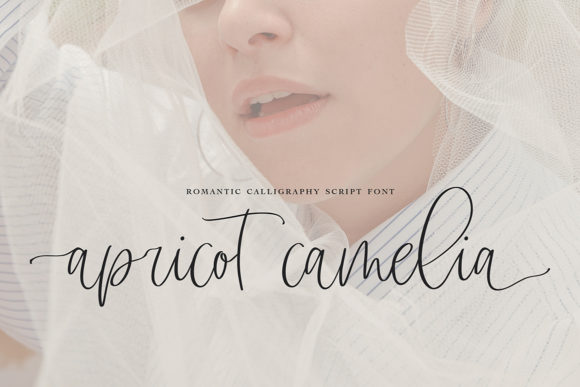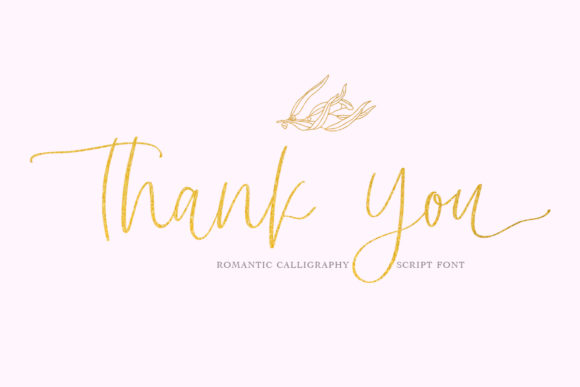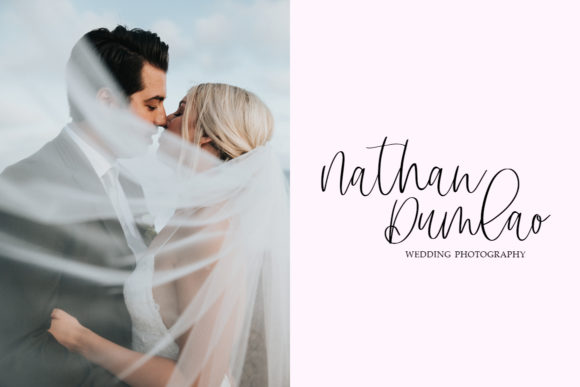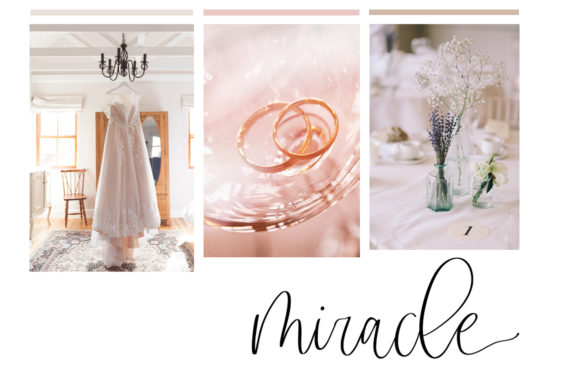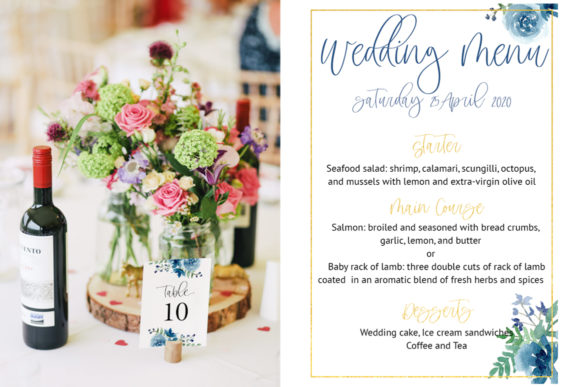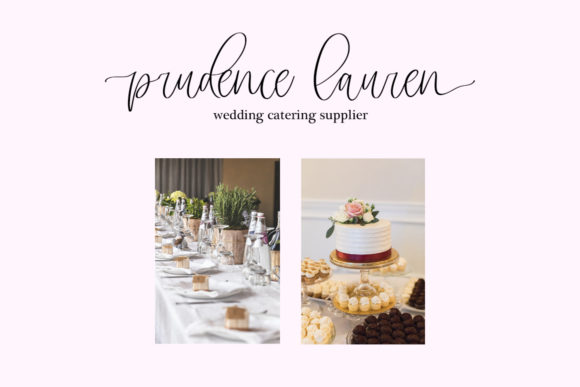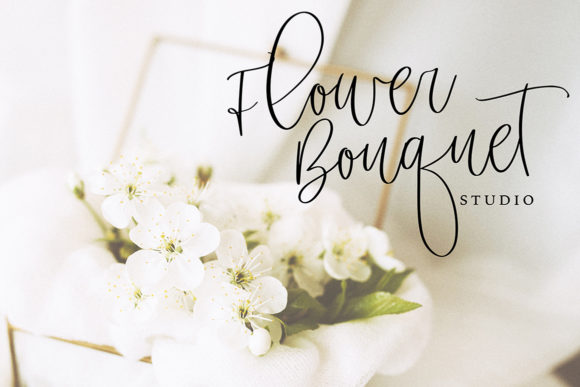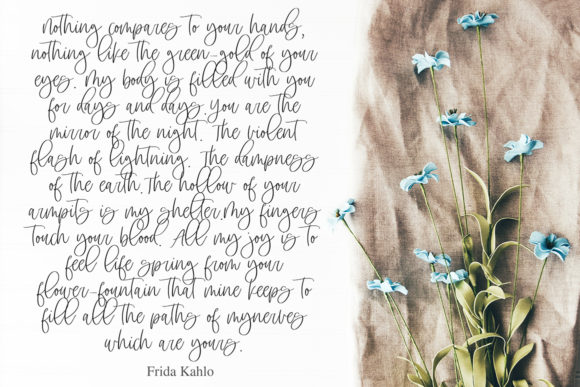
Apricot Camelia Font
About Apricot Camelia Font
Apricot Camelia is a magical handwritten font carefully crafted with a touch of elegance and romance. This will raise a wide range of design projects to the highest level, whether branding, headlines, wedding designs, invitations, signatures, logos, labels and much more!